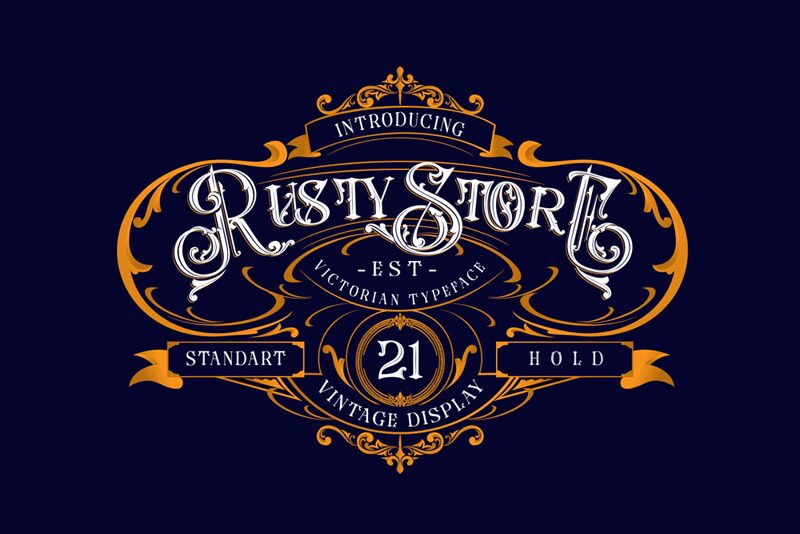
RUSTY STORE Regular
Rusty Store font by Alit Design is a retro display typeface with decorative elements and an ornate structure. Channeling a vintage appeal, this elegant font showcases the true meaning of traditional charm. Its historical influence takes you on a journey through time with its architectural design inspired by old-style classic signage.